How does architecture come into being? Who decides what gets built – and how? Bauen. Ein Prozess. explores the many dimensions of the building process: from planning and political frameworks to the responsibility of everyone involved. The book is aimed at architects, students, and anyone interested in the interplay of mindset, collaboration, and the built environment.
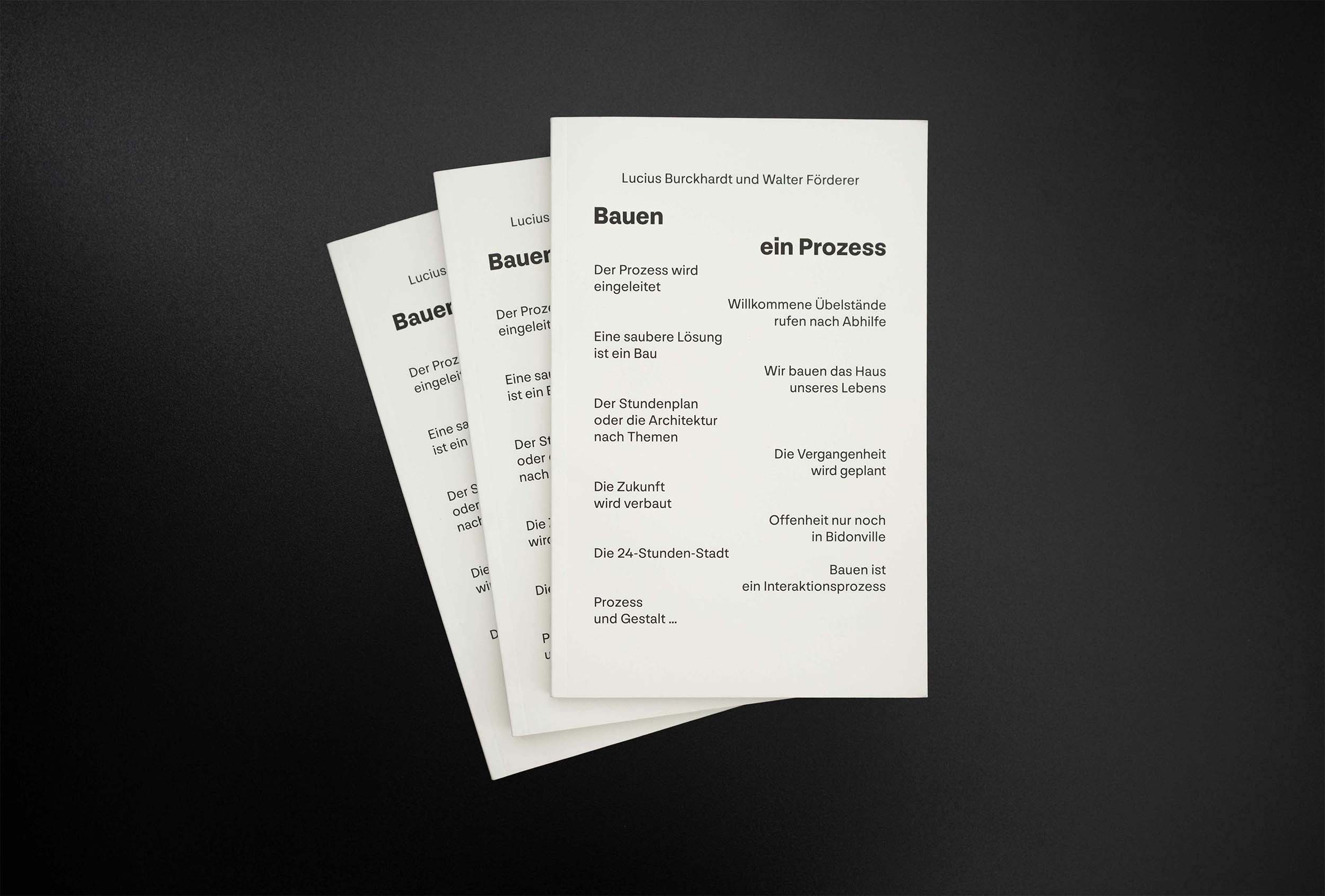
The design is clear and reduced, with a highly legible typeface, structured divider pages, and a continuous navigation bar for optimal orientation throughout the book.